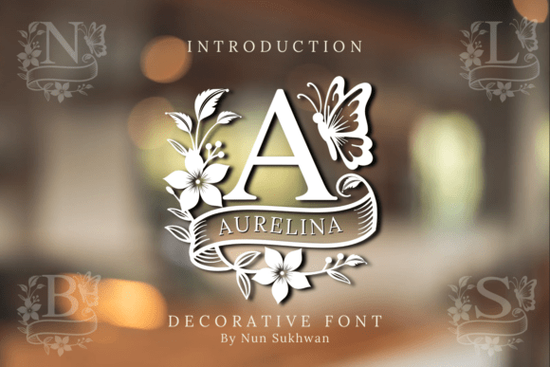
If you're looking for a decorative font that blends vintage elegance with natural motifs, the Aurelina Monogram Font might be exactly what your next project needs. Designed with intricate floral and butterfly details, each letter in Aurelina feels like a hand-drawn botanical illustration perfect for monograms, wedding stationery, or branding that calls for a soft, romantic touch.
Unlike simpler script fonts, Aurelina stands out because every character is treated as a standalone piece of art. That makes it ideal when you want a single initial or a couple’s intertwined monogram to carry visual weight without needing extra embellishments. If you’ve ever struggled to find a font that feels both ornate and cohesive, this one offers a balanced solution.
What kinds of projects work best with Aurelina?
Because of its detailed design, Aurelina shines in applications where the typography itself becomes part of the visual identity. Think:
- Wedding invitations and save-the-dates – Pair it with clean sans-serif fonts for contrast, or use it alone for a fully vintage aesthetic.
- Personalized gifts – Engraved jewelry, embroidered towels, or custom mugs featuring a monogram look instantly elevated.
- Small business logos – Especially for boutiques, florists, or bakeries that want to communicate warmth and craftsmanship.
- Print-on-demand products – Tote bags, wall art, or greeting cards with nature-inspired themes pair beautifully with Aurelina’s organic flourishes.
If you’re designing for digital use only (like social media graphics), keep in mind that very fine details may not render well at small sizes. It’s best reserved for headlines, logos, or large-format prints where those delicate butterflies and vines can truly be appreciated.
How does Aurelina compare to other decorative monogram fonts?
Not all ornamental fonts are created equal. Some lean more gothic, others more geometric. Aurelina’s charm lies in its gentle, garden-like quality. For example, if you’re drawn to vintage Western styles, you might also consider Vintage Spur, which offers a rustic, frontier-inspired look. Or if you’re working on patriotic-themed designs, USA Spirit brings bold Americana energy.
For wedding-focused monograms specifically, another strong option is the Wedding Couple Monogram Font, which emphasizes interlocking initials with clean symmetry ideal when you want minimal distraction from the names themselves. Aurelina, by contrast, invites the viewer to linger on the letterform as an object of beauty.
Tips for using Aurelina effectively
Because of its complexity, less is often more with this font. Here’s how to get the best results:
- Avoid tight spacing. The flourishes need room to breathe tracking (letter-spacing) should be generous.
- Use high-resolution outputs. Fine lines can disappear in low-DPI prints or small PNGs.
- Limit color use. Stick to 1–2 colors max; metallic gold, deep burgundy, or forest green enhance its vintage feel without overwhelming it.
- Pair thoughtfully. Choose a neutral, simple typeface for body text something like Montserrat, Lora, or even a classic serif like Times New Roman.
Also, remember that Aurelina works best as a display font. It’s not meant for paragraphs or UI elements. Save it for moments when you want your typography to make a quiet but memorable statement.
Who should consider downloading Aurelina?
This font is especially useful for:
- Stationery designers creating luxury wedding suites
- Etsy sellers offering custom monogrammed goods
- Branding freelancers building identities for lifestyle or wellness brands
- Crafters using Cricut or Silhouette machines who want cut files with built-in elegance
If your work leans toward minimalism or modern tech aesthetics, Aurelina might feel too ornate. But if your style embraces nostalgia, nature, or handcrafted detail, it’s a versatile addition to your toolkit.
Quick checklist before using Aurelina in your next project
- ✅ Is the output size large enough to show fine details?
- ✅ Have you tested it against your background (light/dark, textured/plain)?
- ✅ Are you using it sparingly as a focal point, not body text?
- ✅ Does your brand or client’s aesthetic align with vintage, floral, or romantic themes?
If you answered “yes” to most of these, Aurelina Monogram Font could be the perfect match for your creative vision.